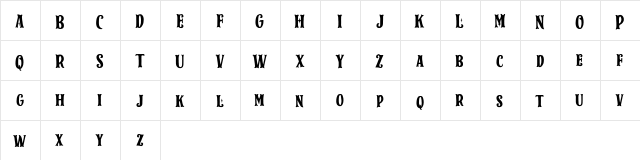
Spark Plug Serif DEMO Regular
| Foundry | ian Irwan Wismoyo |
| Designer | Ian Irwan Wismoyo |
Design Context for Spark Plug Serif DEMO Typeface
Spark Plug Serif DEMO brings classic typographic sensibility to the table — its serifs and measured letterforms reflect centuries of print heritage.
Pro Tip: Set Spark Plug Serif DEMO with slightly loose tracking in headlines to let each letterform's detail read clearly at display sizes.